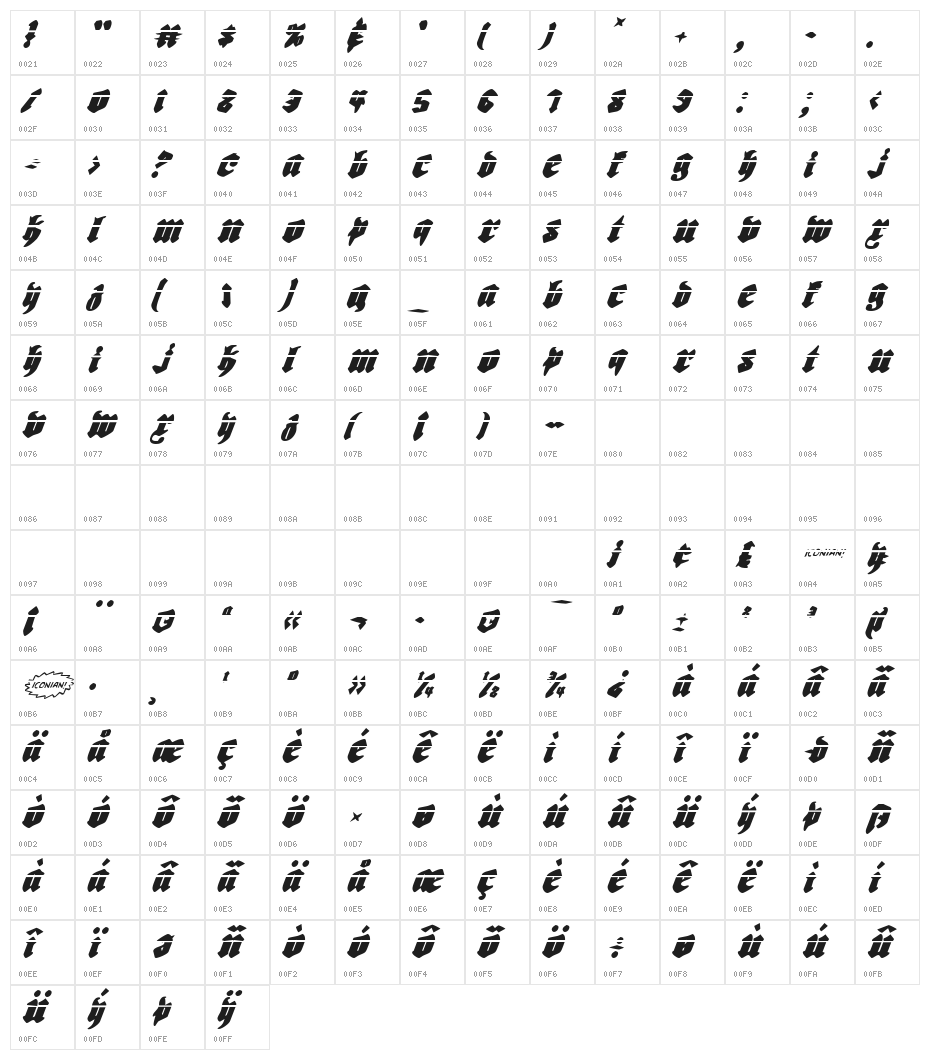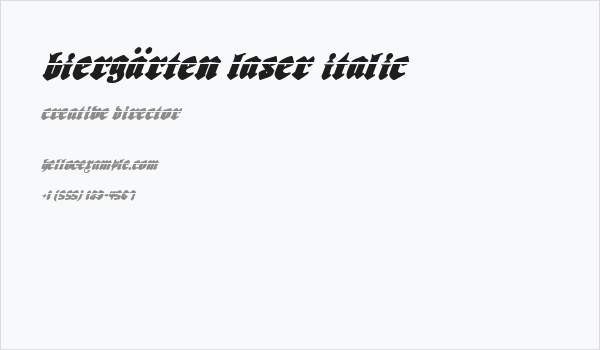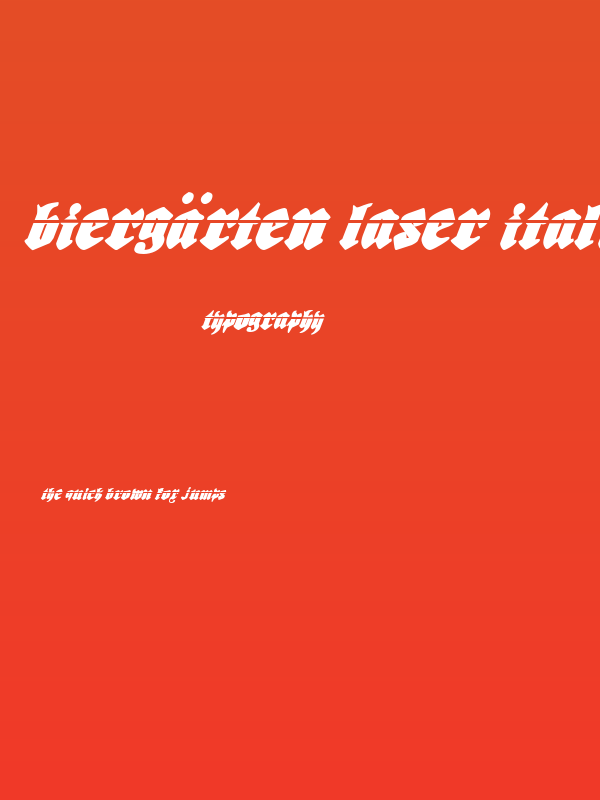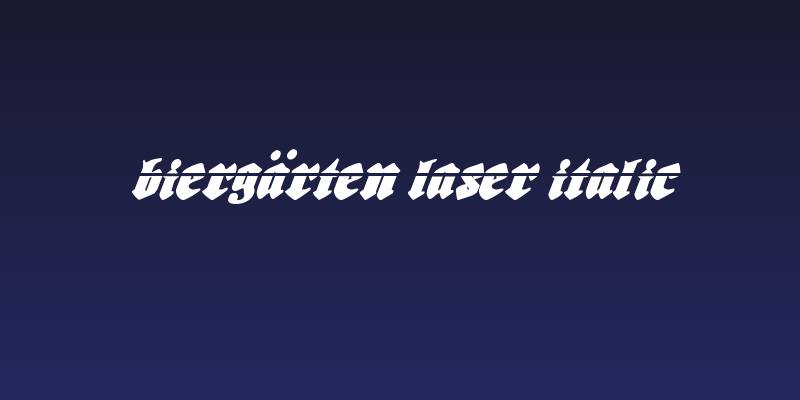
Biergärten Laser Italic Font
Biergärten Laser Italic Description
This font features a bold and dynamic style with a distinct blackletter influence. The characters are sharply angled and exhibit a strong diagonal emphasis, giving them a sense of movement and energy. The uppercase and lowercase letters maintain a consistent style, with intricate details that enhance their decorative appeal. The numbers and special characters are equally stylized, fitting seamlessly into the overall design. This font's bold strokes and unique flair make it stand out, while its italic slant adds a touch of elegance and sophistication.
| Proposed Projects | Ideal for projects requiring a dramatic and historical touch, such as event posters, book covers, or branding for vintage-themed products. |